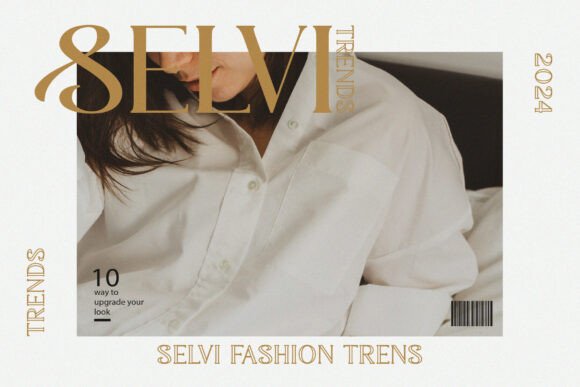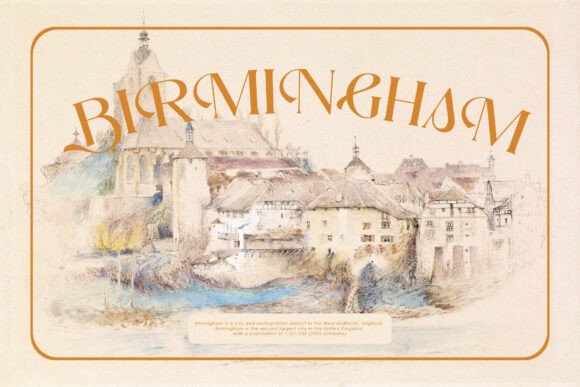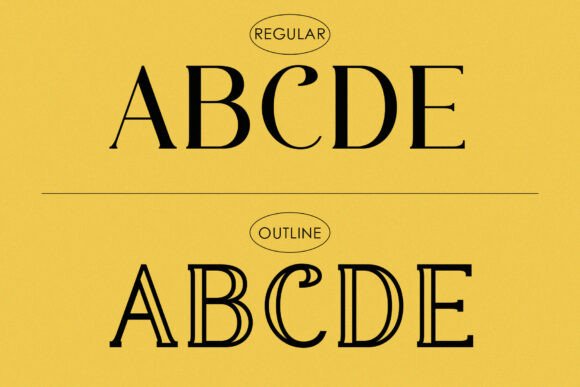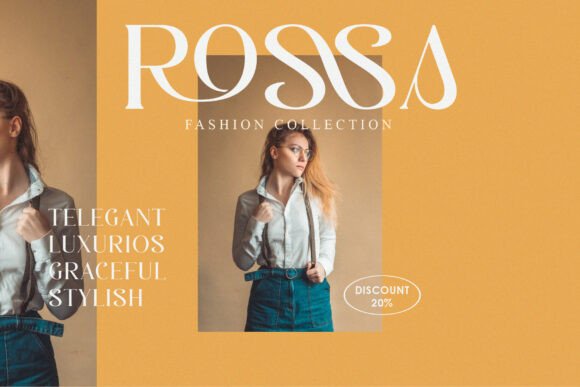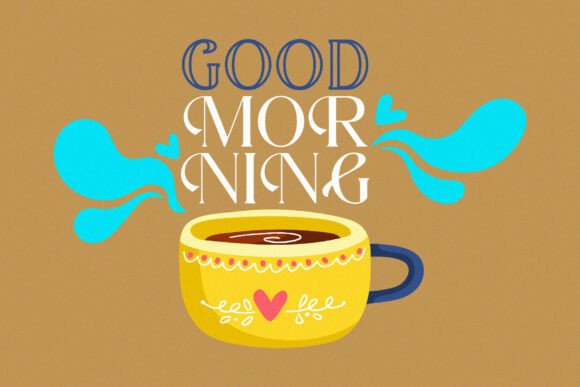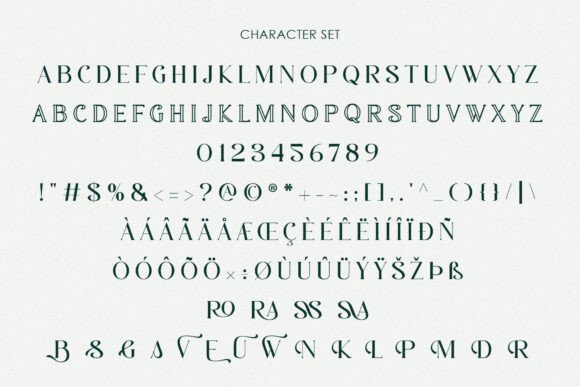
Introducing Garaven: The Elegant, Beautiful, and Modern Serif Font
Are you looking for a font that exudes luxury, class, and sophistication? Look no further than Garaven, the modern serif font that’s perfect for a wide range of design projects. With its regular and outline styles, Garaven brings a clean, elegant, and beautiful style to your designs, making it ideal for websites, logos, brand identities, social media quotes, wedding stationery, magazines, and more!
What Makes Garaven Special?
Garaven is more than just a font – it’s a design statement. Its sleek and modern serif design makes it perfect for designers and crafters who want to add a touch of luxury and sophistication to their projects. The font’s regular and outline styles provide versatility, allowing you to use it for a wide range of applications, from logos and branding to wedding invitations and social media graphics.
Garaven is a versatile font that can be used for various design projects, including:
- Logos and Brands: Create a lasting impression with Garaven’s elegant and modern design. Perfect for luxury brands, fashion labels, and high-end businesses.
- Wedding Invitations: Add a touch of sophistication and romance to your wedding stationery with Garaven’s beautiful serif design.
- Business Cards: Stand out from the crowd with Garaven’s clean and elegant design, perfect for professionals and entrepreneurs.
- Greeting Cards: Create beautiful and heartfelt greeting cards for special occasions with Garaven’s versatile design.
- Posters and Magazines: Use Garaven to add a touch of luxury and sophistication to your posters, magazines, and other print materials.
- Social Media: Elevate your social media graphics with Garaven’s modern and elegant design, perfect for quotes, promotions, and more.
- Agenda Prints: Create stylish and functional agenda prints with Garaven’s clean and beautiful design.
- Websites: Use Garaven to add a touch of elegance and sophistication to your website, perfect for luxury brands, fashion labels, and high-end businesses.
Why Choose Garaven?
With so many fonts available, why choose Garaven? Here are just a few reasons:
- Unique and Modern Design: Garaven’s sleek and modern serif design sets it apart from other fonts, making it perfect for designers and crafters who want to create something unique.
- Versatile: Garaven’s regular and outline styles provide versatility, allowing you to use it for a wide range of applications.
- Elegant and Luxurious: Garaven’s elegant and luxurious design makes it perfect for high-end businesses, luxury brands, and special occasions.
- Clean and Readable: Garaven’s clean and readable design makes it perfect for body text, headlines, and more.
Tips for Using Garaven
Here are a few tips for using Garaven in your design projects:
- Pair with Other Fonts: Experiment with pairing Garaven with other fonts to create a unique and visually appealing design.
- Use for Headlines and Body Text: Use Garaven’s regular style for body text and headlines to create a cohesive and elegant design.
- Add a Pop of Color: Use Garaven’s outline style to add a pop of color and create visual interest in your design.
In conclusion, Garaven is a beautiful, elegant, and modern serif font that’s perfect for designers and crafters who want to add a touch of luxury and sophistication to their projects. With its regular and outline styles, Garaven provides versatility and elegance, making it ideal for a wide range of design applications. Whether you’re creating a logo, wedding invitation, or social media graphic, Garaven is the perfect choice.